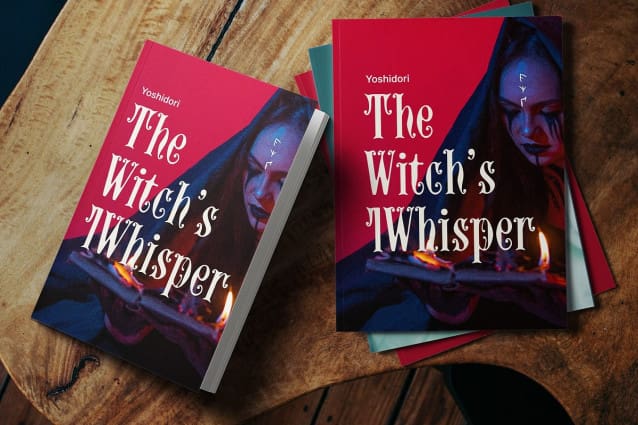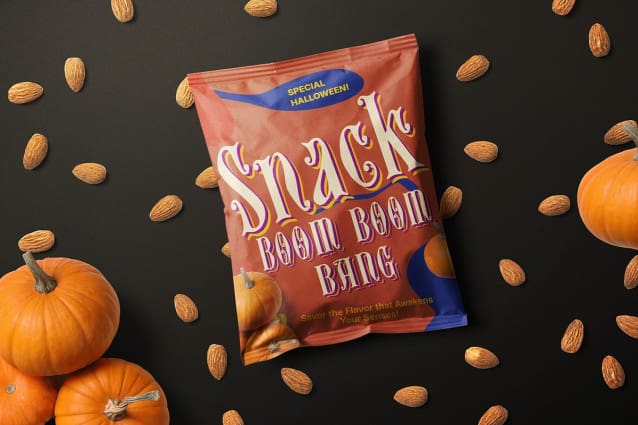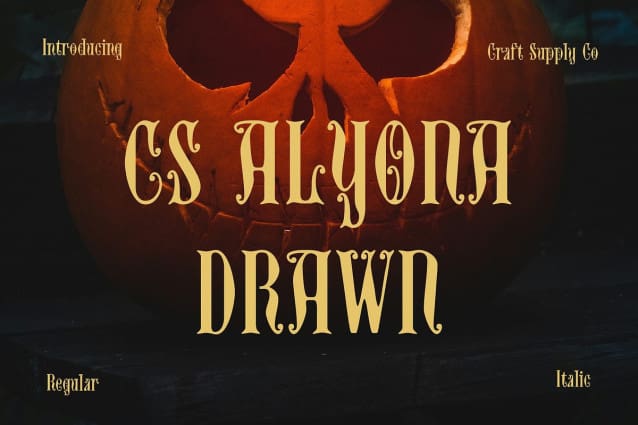
CS Alyona Drawn Font
CS Alyona Drawn Font is a striking gothic serif display font that masterfully combines traditional elegance with an artistic edge. Bold, angular shapes give this font a classic, commanding presence, while the subtle drawn effect introduces a handcrafted quality that sets it apart. With its gothic roots, this drawn font channels a sense of history and grandeur, making it an ideal choice for designs that seek to evoke a timeless appeal.
Handcrafted Aesthetic for Artistic Expression The drawn effect adds an artisanal charm to this font, imbuing each letter with a dimensional, textured quality. This handcrafted touch softens the boldness of the gothic style, creating a balance between structure and artistry that makes the font versatile across various applications. The effect lends a sense of personality to each letterform, giving the impression of a meticulously crafted piece.
A Statement Font for Diverse Projects CS Alyona Drawn’s unique combination of bold gothic forms and hand-drawn detailing makes it a powerful choice for various design projects. It excels in larger formats like headlines, banners, and signage, where its intricate details can be fully appreciated. Additionally, its gothic elegance and textured appearance make it suitable for logos, packaging, and branding designs that need a distinctive and memorable touch.